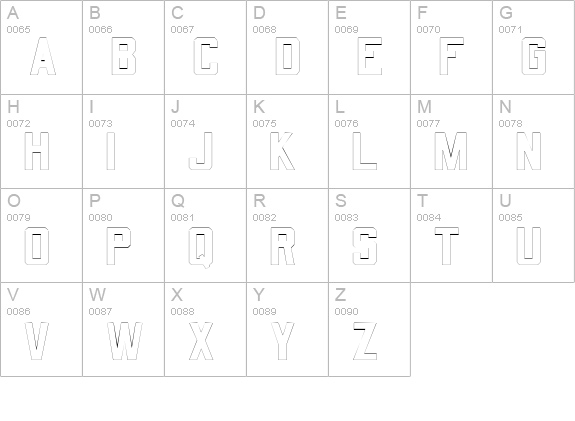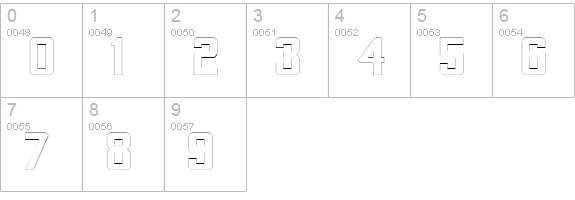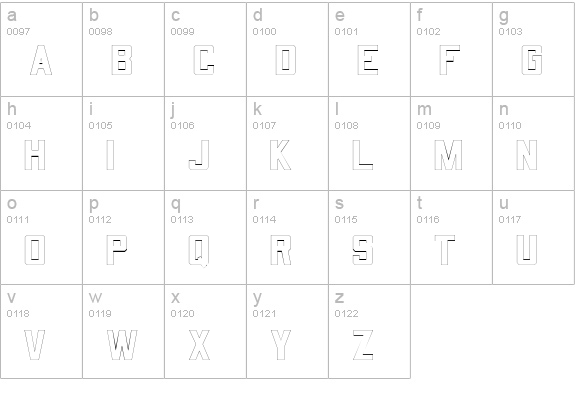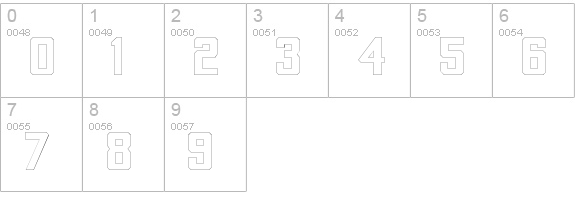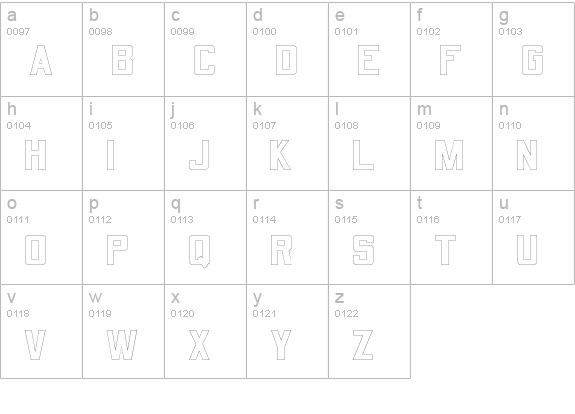
QuarterbackOutline Font Details
QuarterbackOutline is a stunning and bold font that will make a powerful statement in any design project. With its strong and defined lines, this font exudes confidence and strength. Perfect for sports-related designs or any project that requires a touch of athleticism, QuarterbackOutline is sure to catch the eye. This font is not only visually appealing but also versatile, as it can be used for both headlines and body text. Its unique and artistic design sets it apart from other fonts, making it a great choice for those looking to make a lasting impression. Best of all, QuarterbackOutline is available for free download at FontsMarket.com. This means that you can add this incredible font to your collection without spending a dime. Whether you're a professional designer or a hobbyist, having access to high-quality fonts like QuarterbackOutline can greatly enhance your creative projects. So why wait? Download QuarterbackOutline today and unleash your creativity. With its bold and distinctive style, this font is sure to elevate your designs to new heights. Don't miss out on this opportunity to add an impressive font to your arsenal. Visit FontsMarket.com now and get your hands on QuarterbackOutline for free.